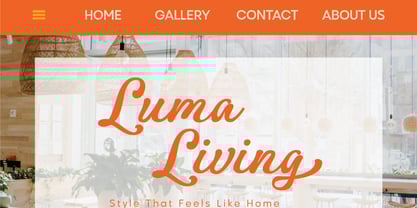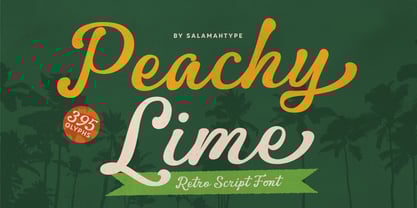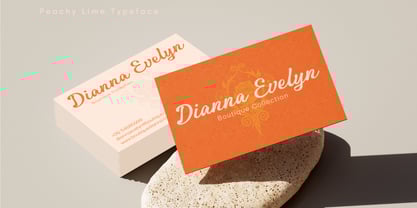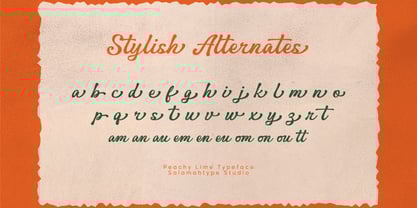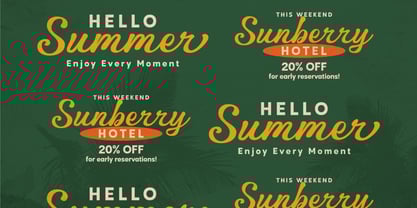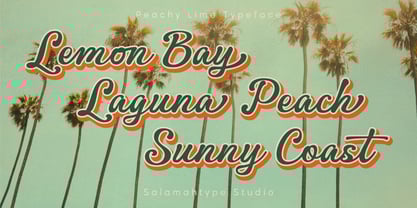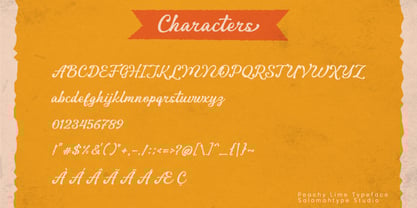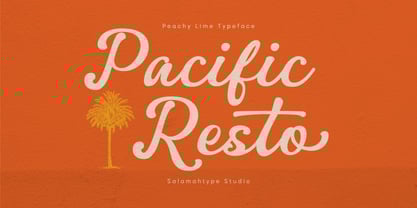
Peachy Lime
Say hello to Peachy Lime, a playful retro script font that feels just like summer! With smooth curves and a bold personality, this font is made to bring a fresh, fun look to your designs. Whether you’re creating a logo, a poster, or packaging, Peachy Lime adds that sunny, nostalgic feel with a modern twist.
It comes with 395 glyphs, including cool alternates and ligatures, so you can get that hand lettered look without the extra effort. Every letter feels alive and full of character perfect for beach themes, retro branding, or anything that needs a splash of personality. From vintage cafe menus and social media graphics to travel posters and product labels, Peachy Lime makes your design pop with charm and good vibes.
• 395 Glyphs (Alternates + Ligatures)
Perfect for: Summer Posters, Retro Logos, Cafe Menus, Social Media, and Creative Branding.